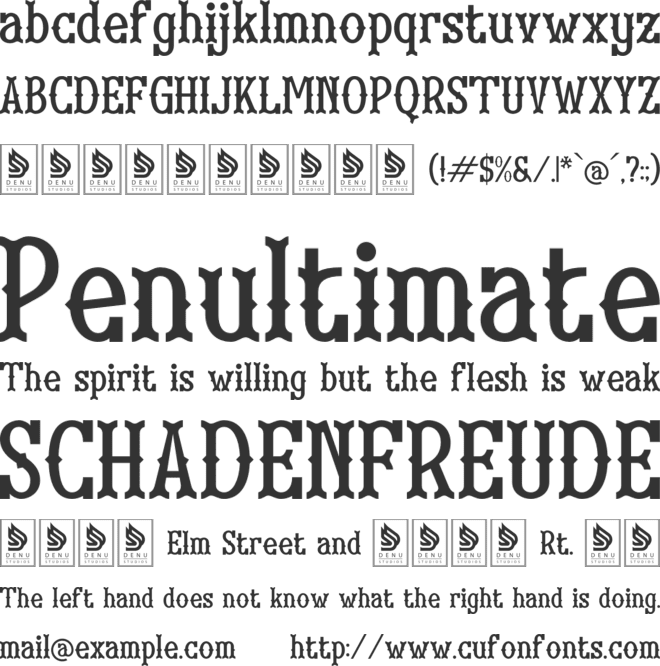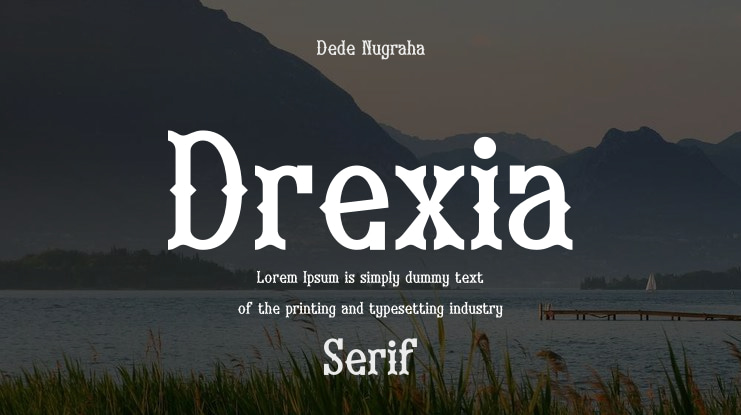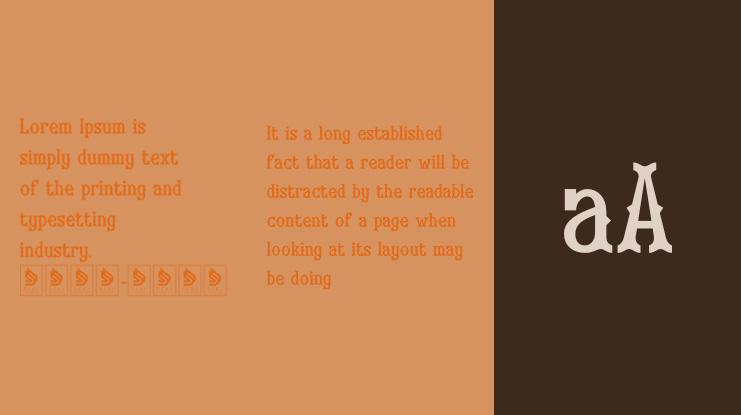
Drexia | Western Typeface product packaging, mugs, quotes, posters, shopping bags, t-shirts, book covers, name card, invitation cards, greeting cards, label, photography, watermark, special events, and all your other lovely projects that need a Western Typeface taste.